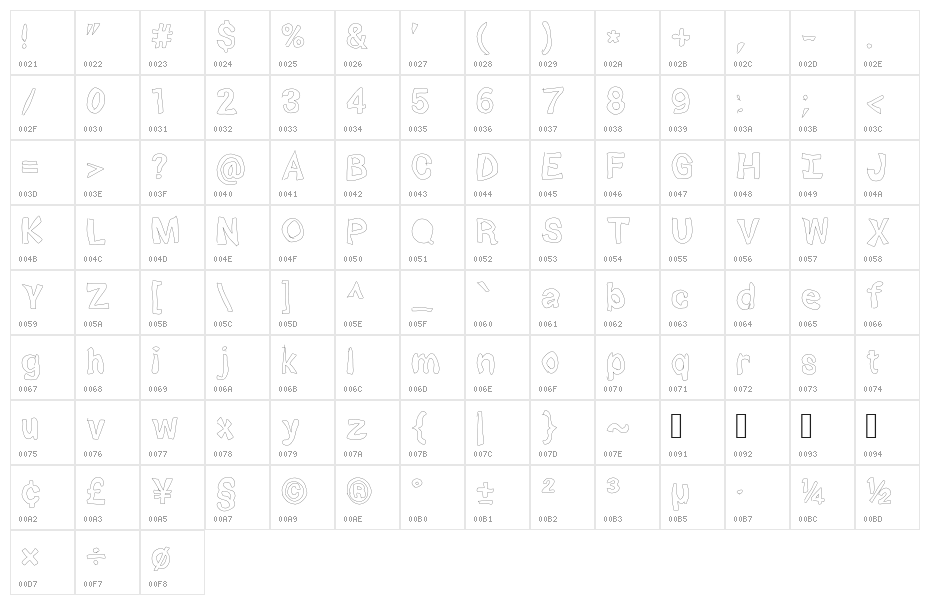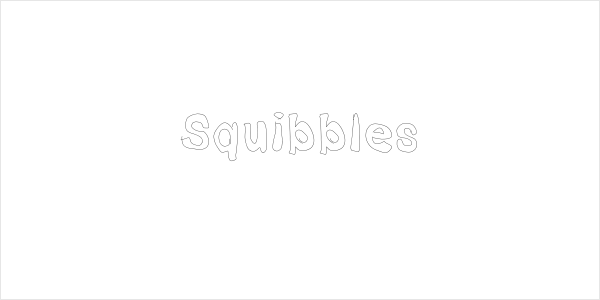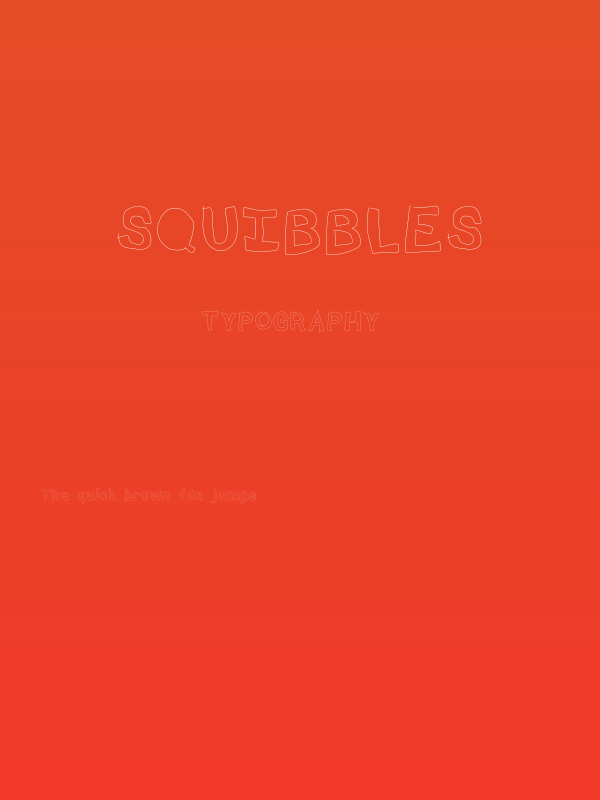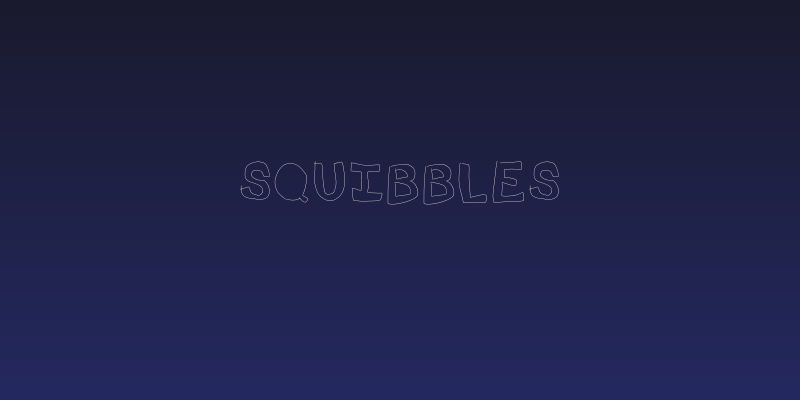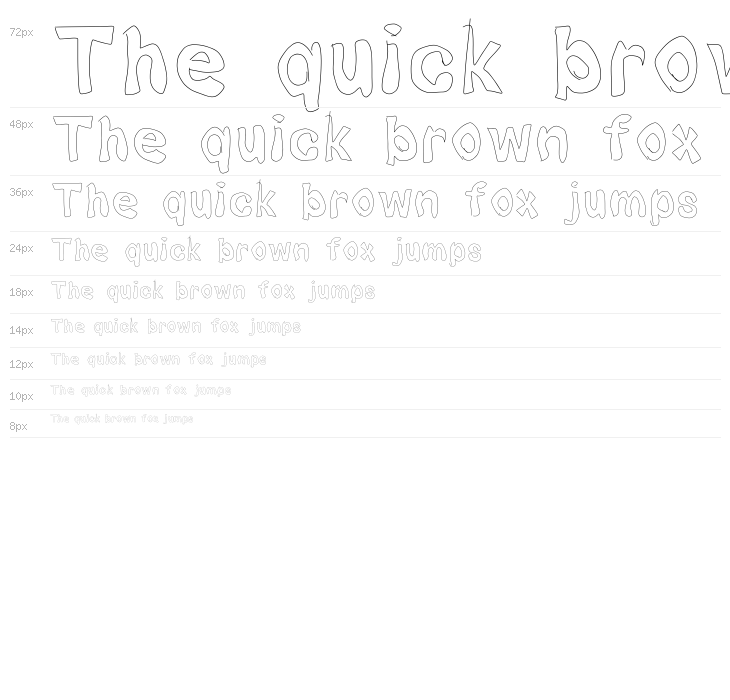
Squibbles Font
Squibbles Description
This playful and whimsical font features a hand-drawn style with uneven, wavy lines that give it a lively and informal appearance. The characters are outlined, creating a sense of lightness and fun. The uppercase and lowercase letters maintain a consistent style, with rounded edges and a slightly irregular form that adds to the font's charm. Numbers and special characters follow the same quirky design, making it suitable for creative projects. The font's unique style is reminiscent of doodles or sketches, perfect for adding a personal touch to any design.
| Proposed Projects | Ideal for children's books, playful branding, casual invitations, and creative posters. |